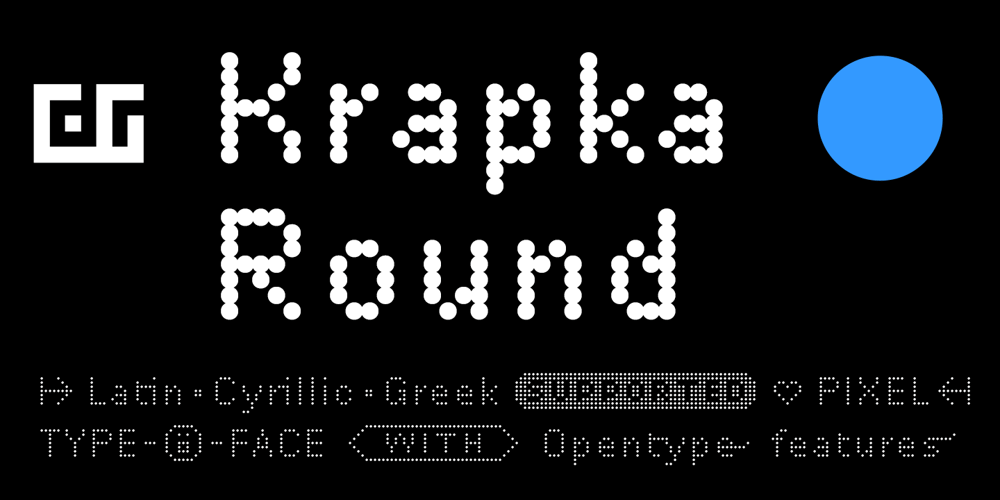
DR Krapka Round Font Family was designed by Dmitry Rastvortsev and published by Dmitry Rastvortsev. DR Krapka Round contains 22 styles and family package options. In the DR Krapka Round typefamily, the pixel has a round shape. The font supports OpenType features and contains small capitals, ligatures, oldstyle figures, terminal forms, historical forms, stylistic sets. The dingbats, arrows, emoji are also present. For small texts, it is recommended to use DR Krapka Round-FontSize10px in the font size 10 px.DR Krapka Round typefamily supported European languages based on Latin, Cyrillic and Greek scripts.